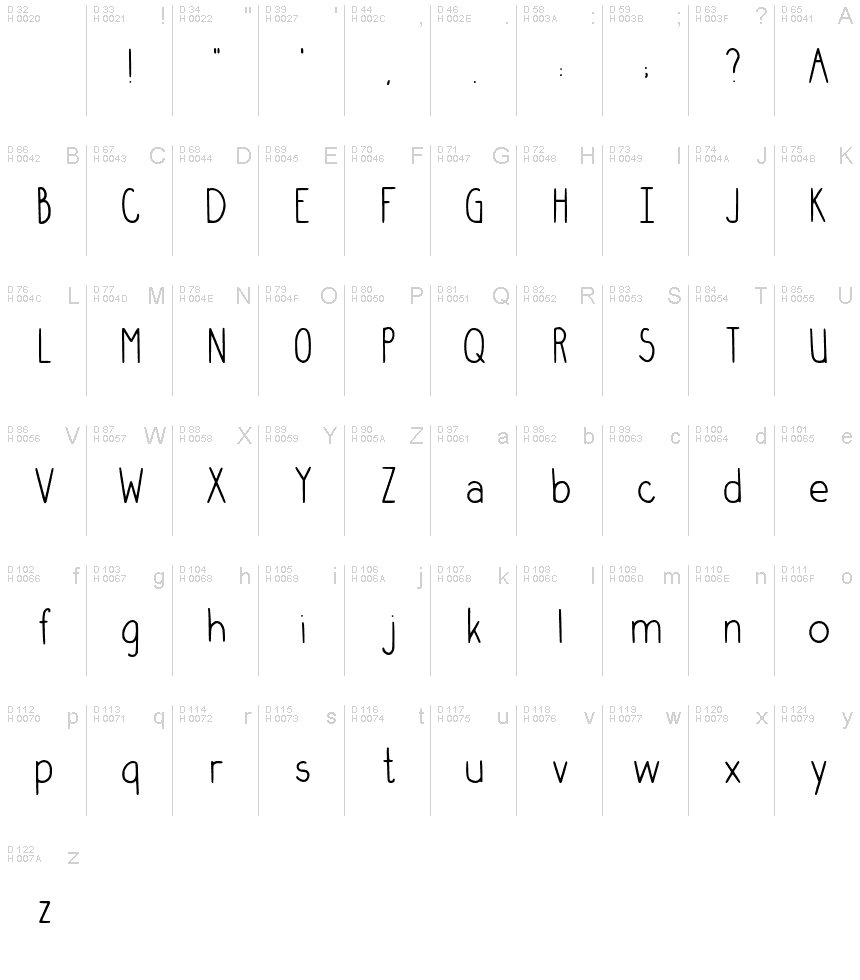
Conservative Font Regular
Conservative Font by glitterdazed is a charming and elegant handwritten font that adds a personal touch to any project. With its semi-light weight, it strikes the perfect balance between delicate and legible. The font's organic curves and flowing lines make it perfect for wedding invitations, greeting cards, and other formal occasions. Meanwhile, its approachable style makes it ideal for social media graphics, blog headers, and branding materials. Use Conservative Font to add a touch of sophistication to your designs while still maintaining an approachable vibe.